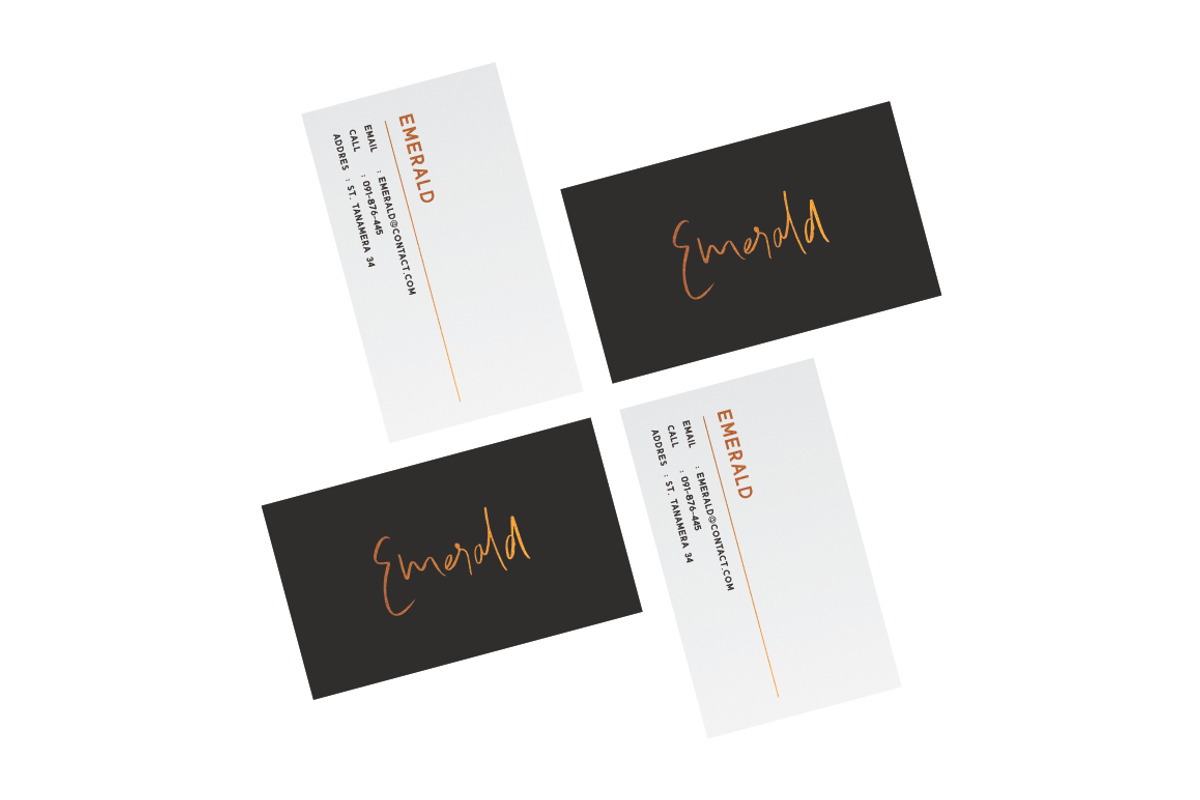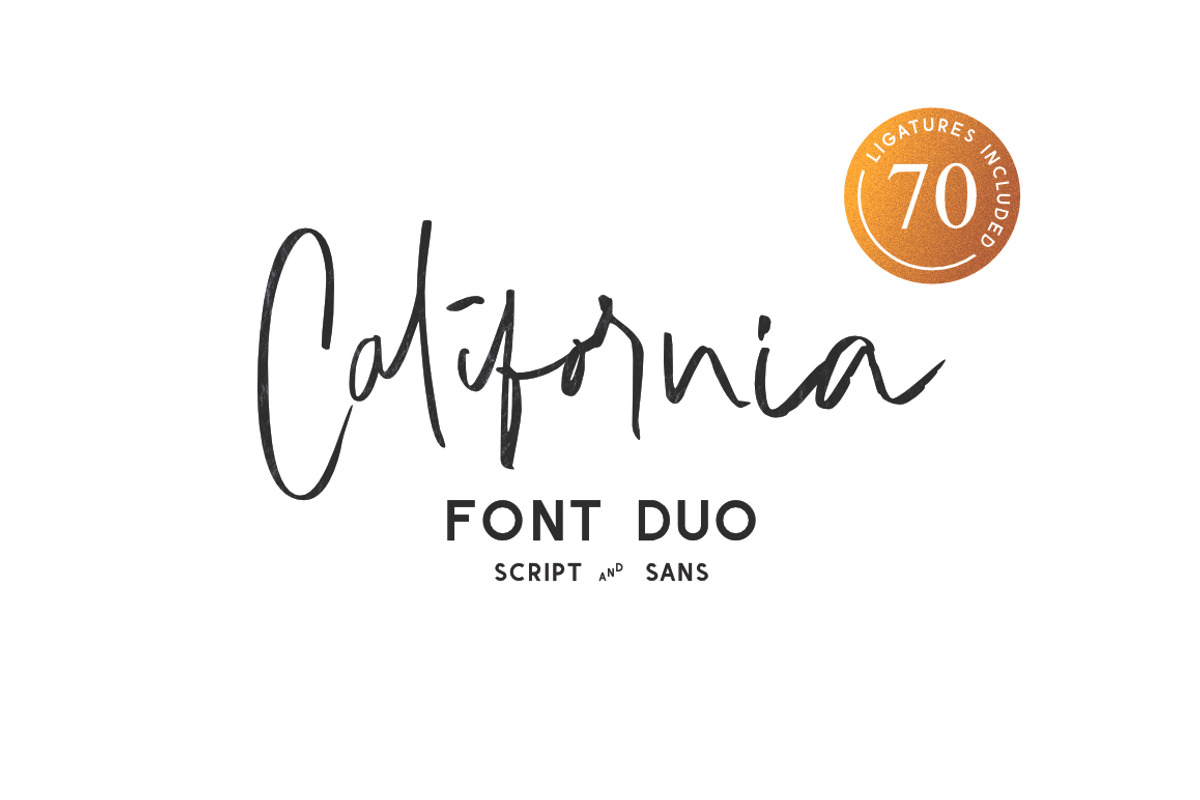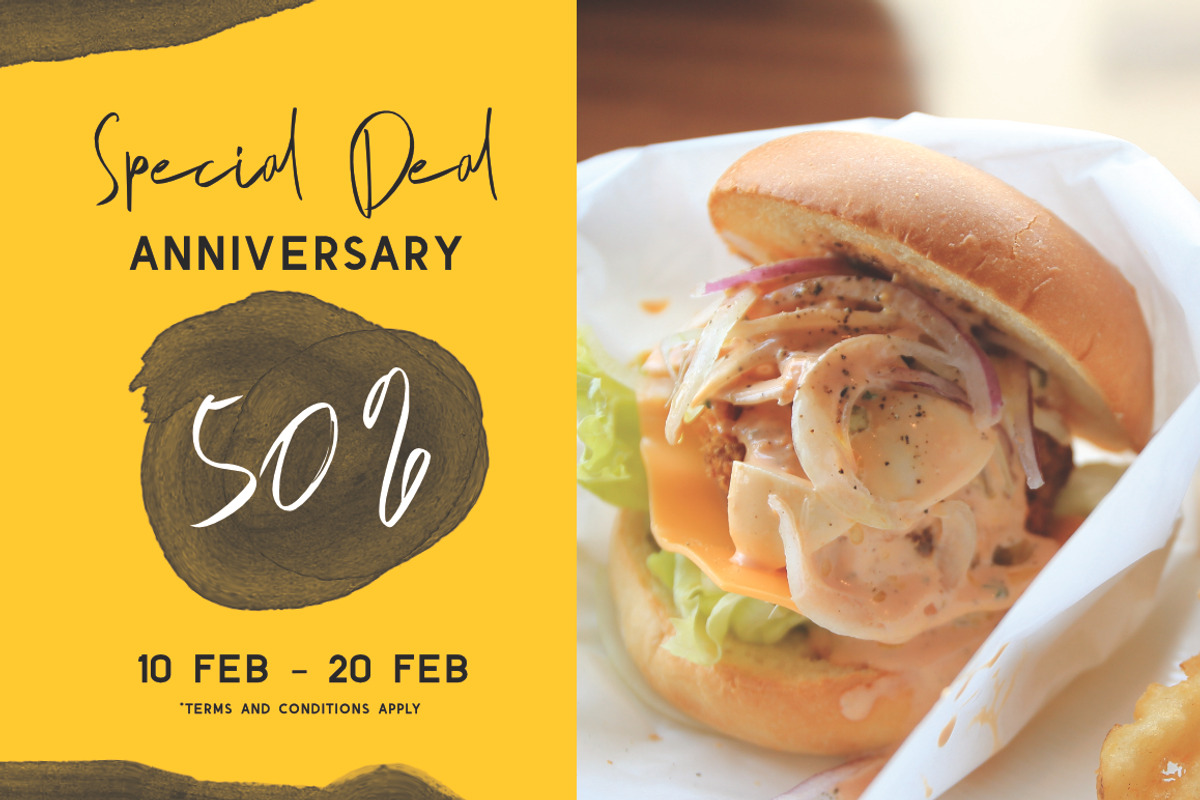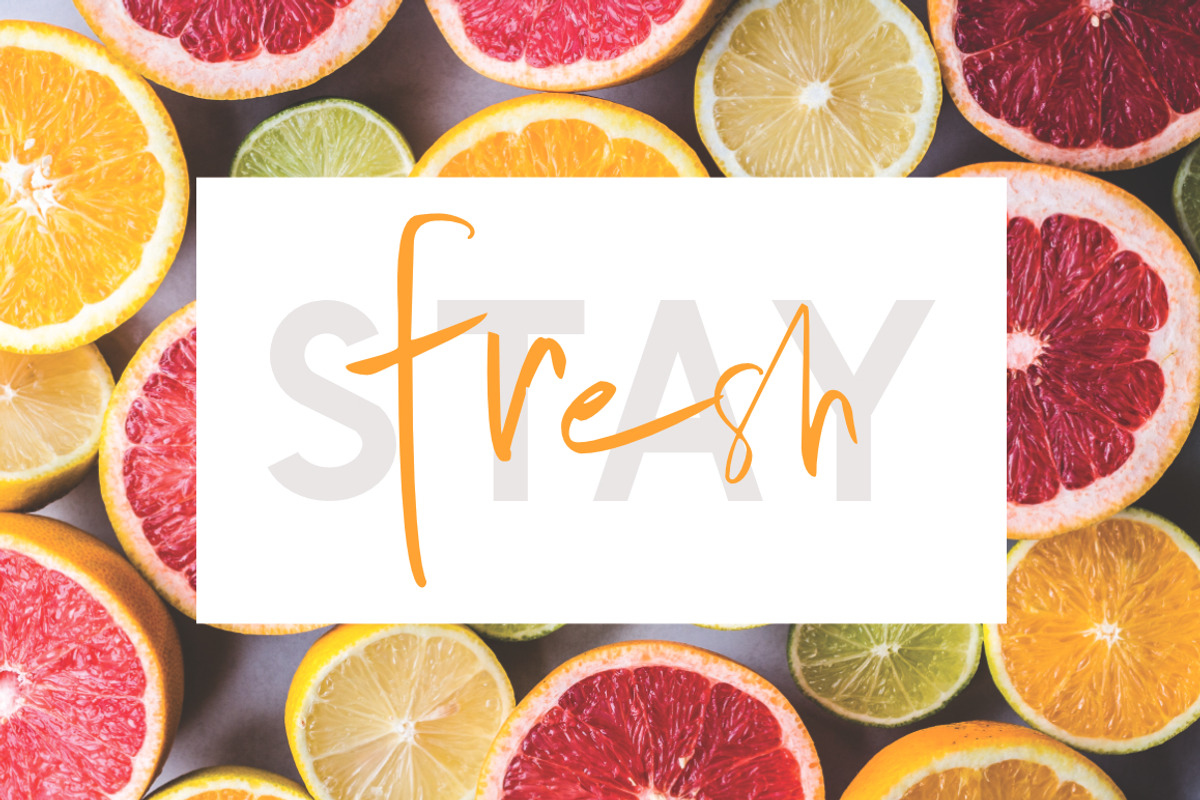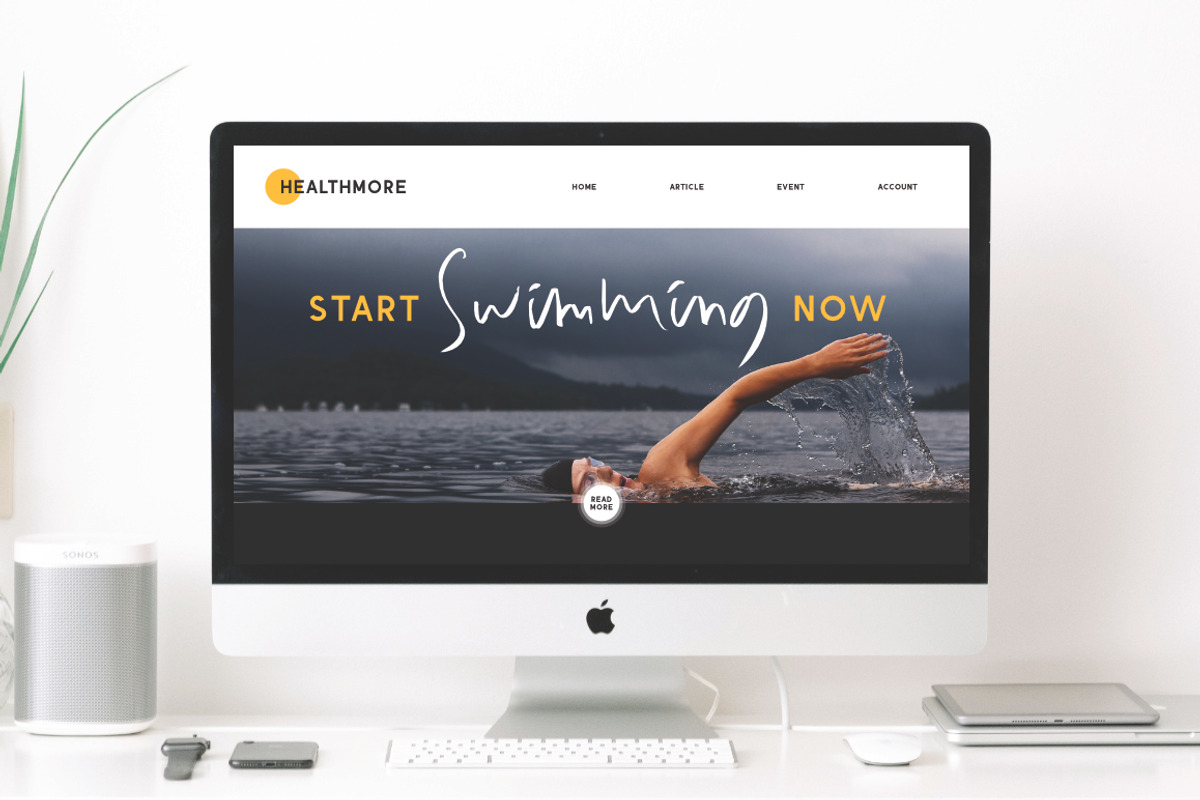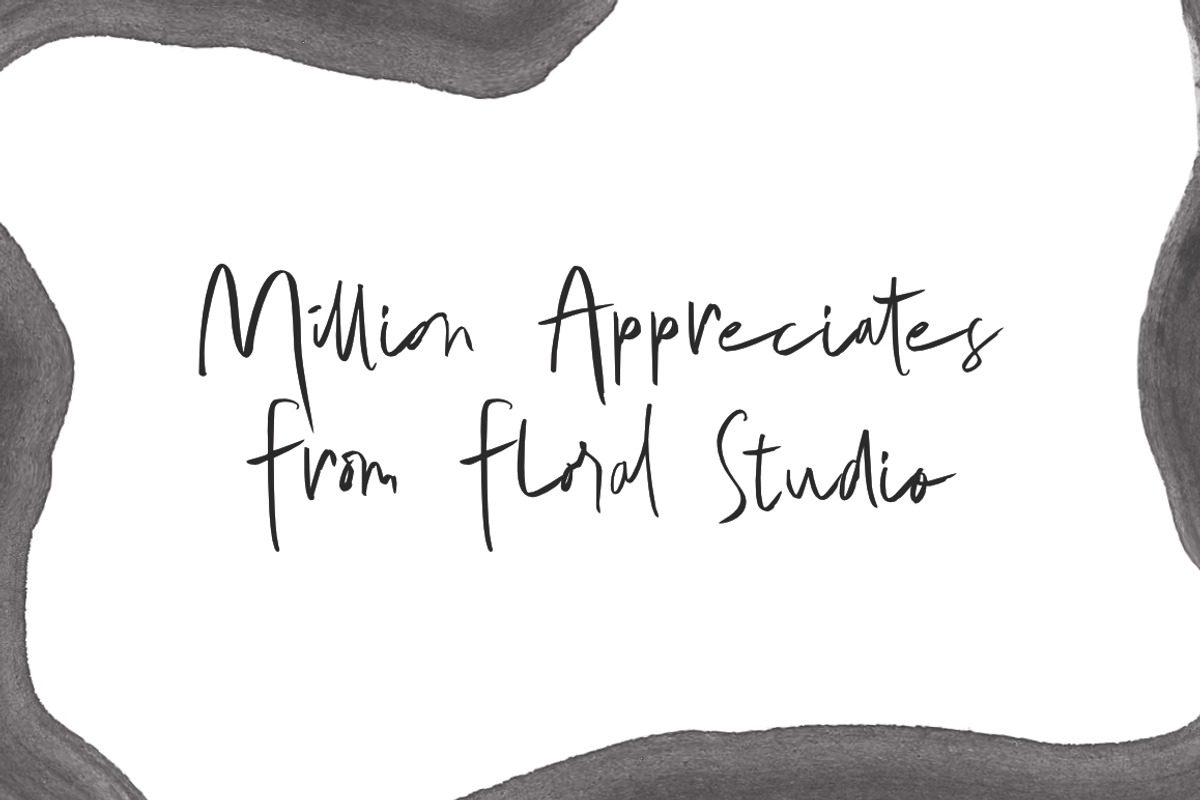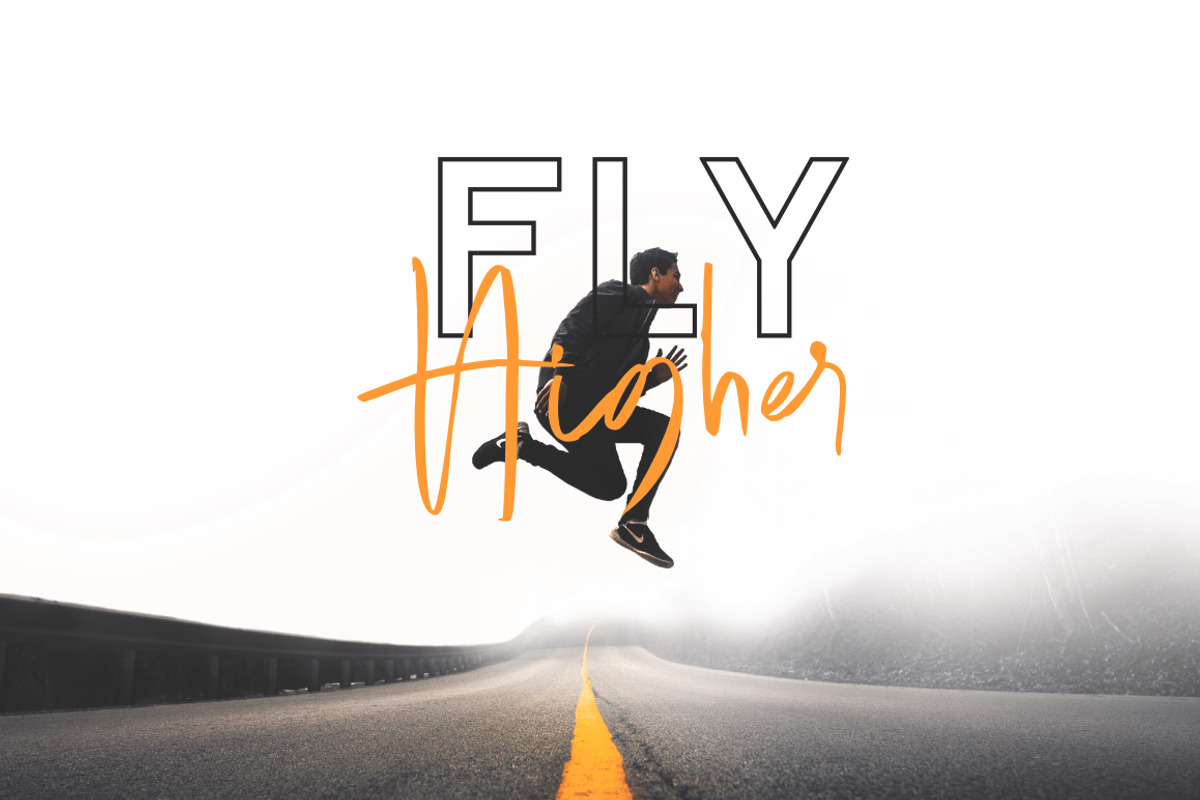
California Vibe // Font Duo
California Vibe is a sexy font pairing between sans & script that also completed with 70 ligatures that totally perfect for any creative projects such as logo design, branding, product advertising, tittle, book cover design and many more.
California Vibe is also coming with opentype feature like alternate, ligature that help you play the typography with.